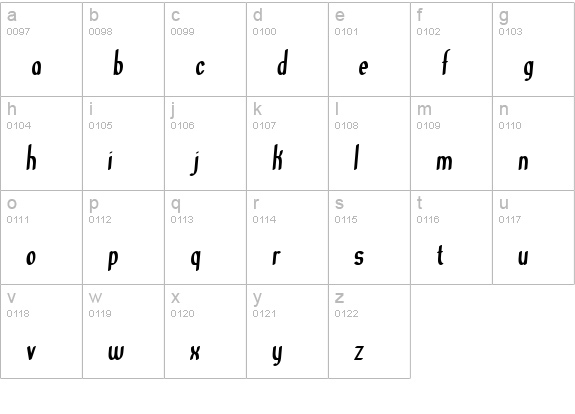
Great Heights BRK Font Details
Great Heights BRK is a modern and stylish font that exudes elegance and sophistication. With its tall and slender letterforms, this typeface evokes a sense of grandeur and refinement. Its clean lines and smooth curves make it perfect for a variety of design projects, from logos to branding to editorial design. What's even better is that Great Heights BRK is available for free download at FontsMarket.com. This means that you can easily add this stunning font to your collection without any cost. So why wait? Elevate your designs to new heights with Great Heights BRK today!